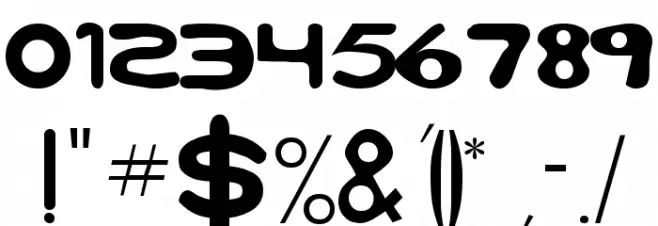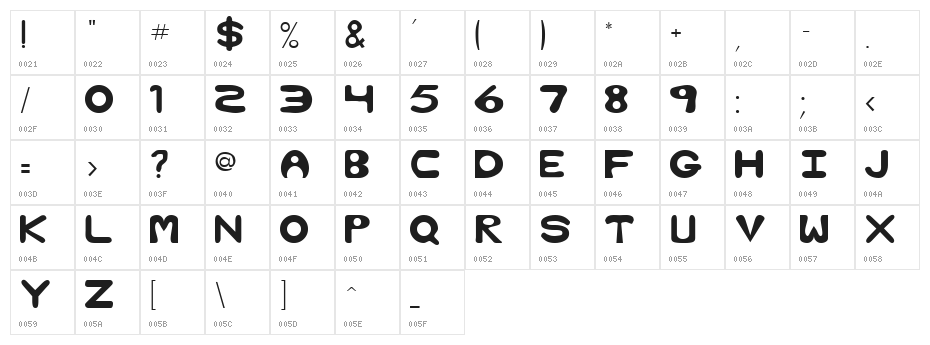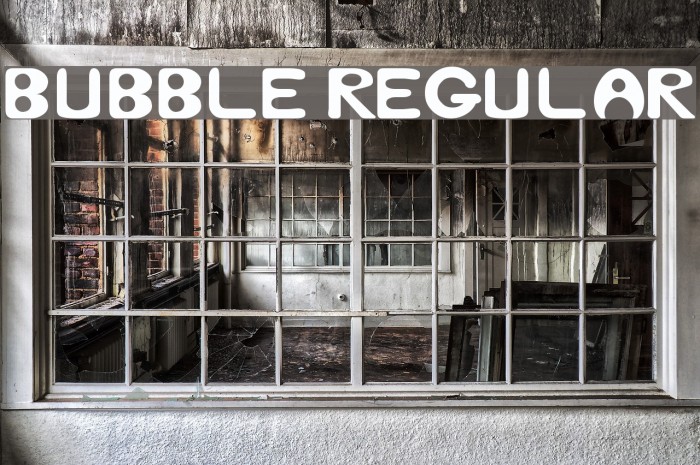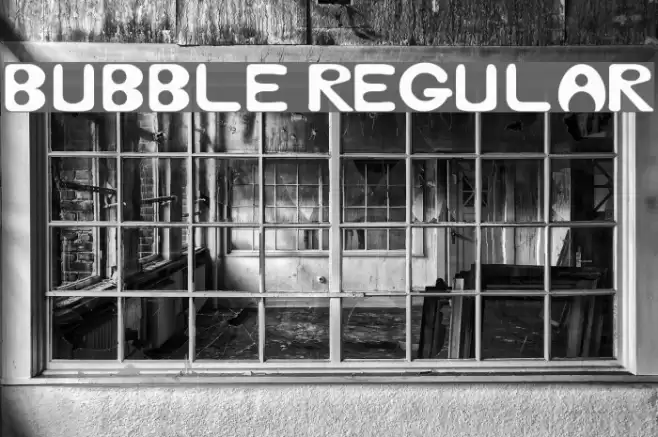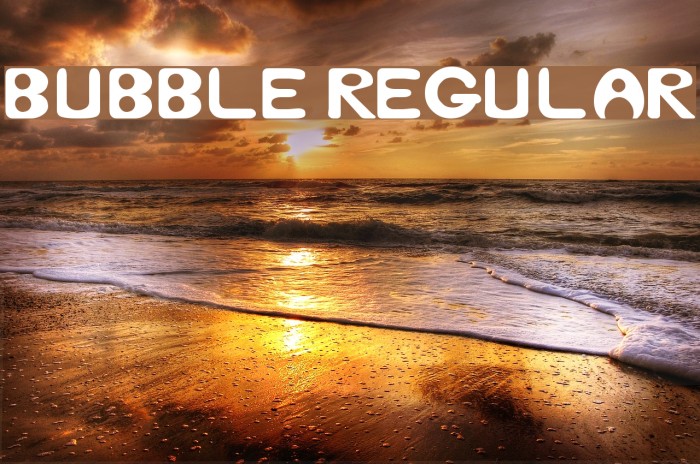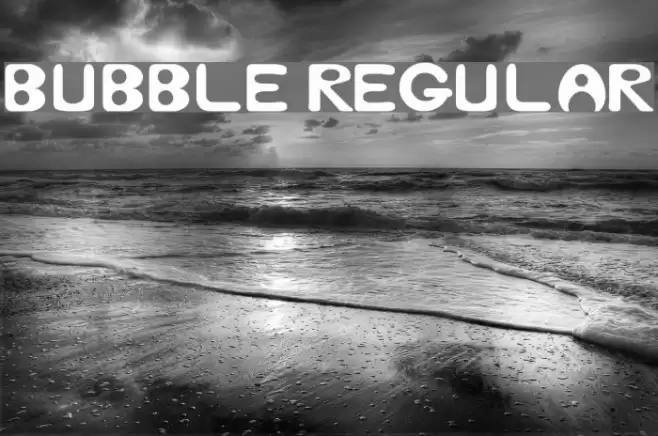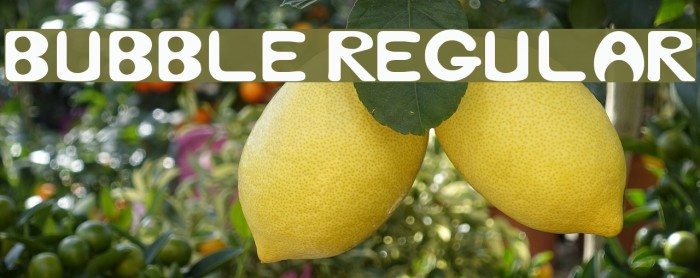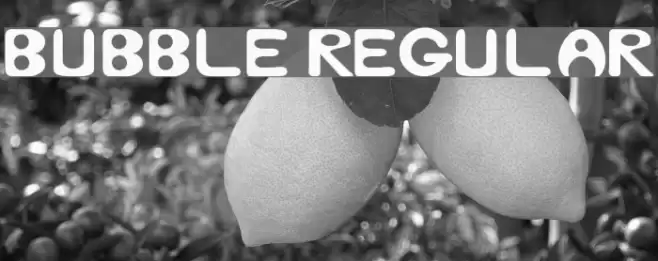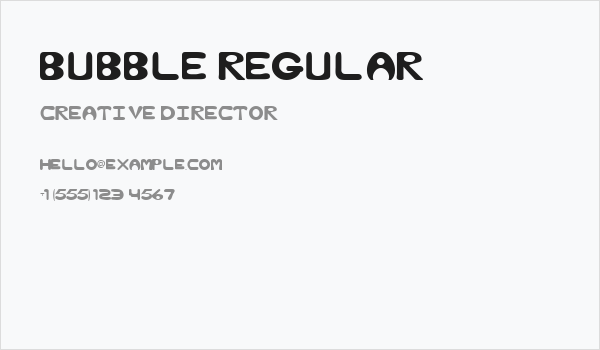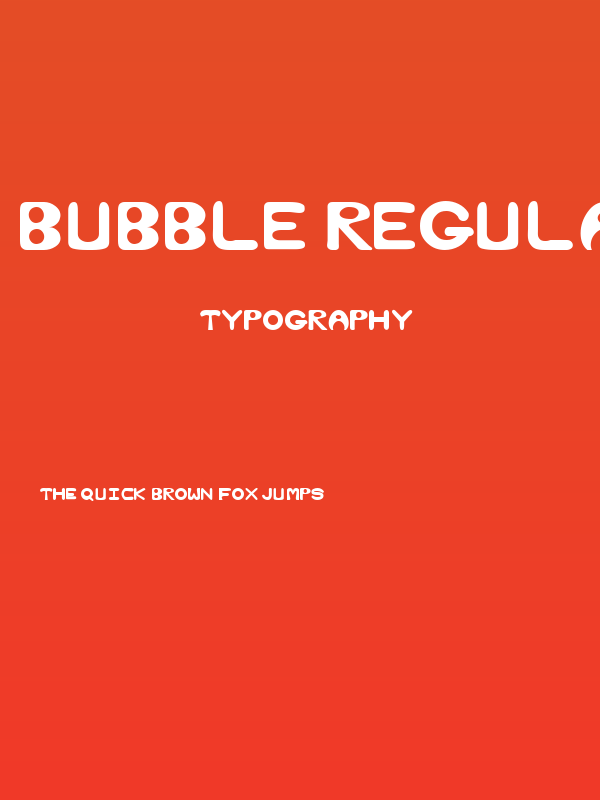
Bubble Regular Font
Bubble Regular Description
This playful and rounded font features bold, bubbly characters that exude a sense of fun and whimsy. The letters are thick and have a soft, rounded appearance, making them highly legible and approachable. The font's design is consistent across uppercase and lowercase letters, as well as numbers and special characters, maintaining a cohesive look. Its unique style is perfect for projects that require a friendly and informal touch, such as children's books, party invitations, or playful branding. The overall appearance is both modern and nostalgic, reminiscent of retro bubble lettering.
| Overall Style | Playful, Retro |
| Proposed Projects | Ideal for children's books, party invitations, playful branding, and retro-themed designs. |